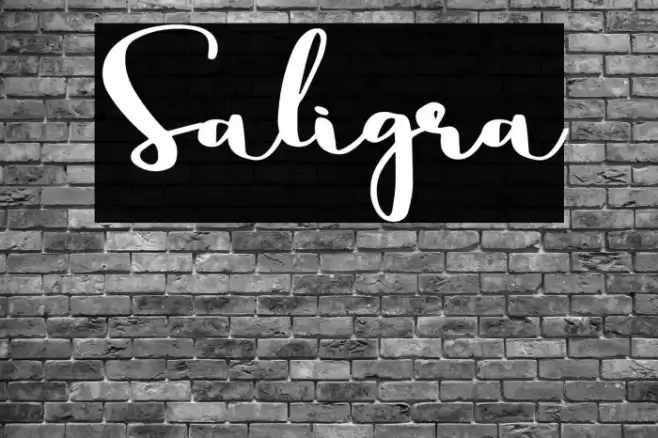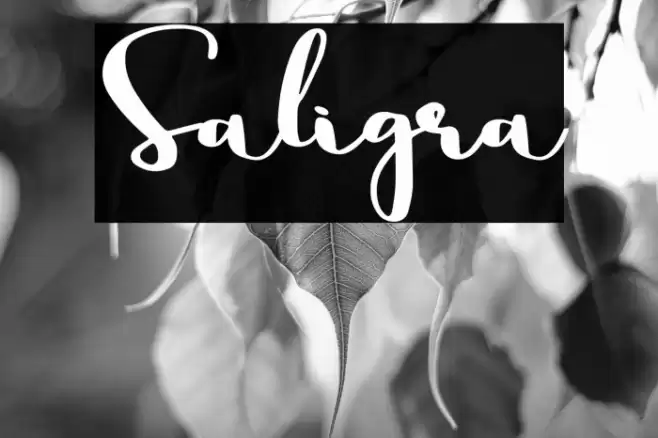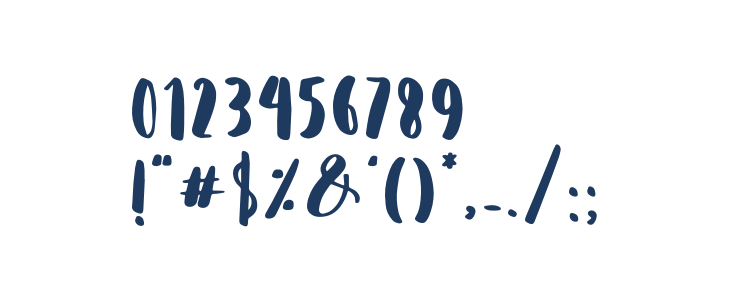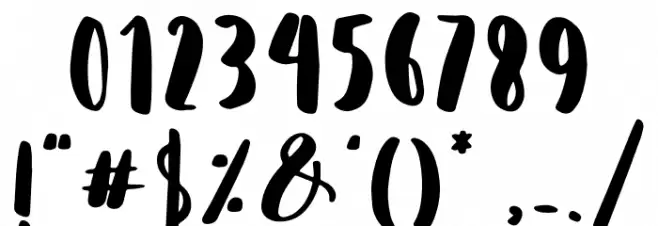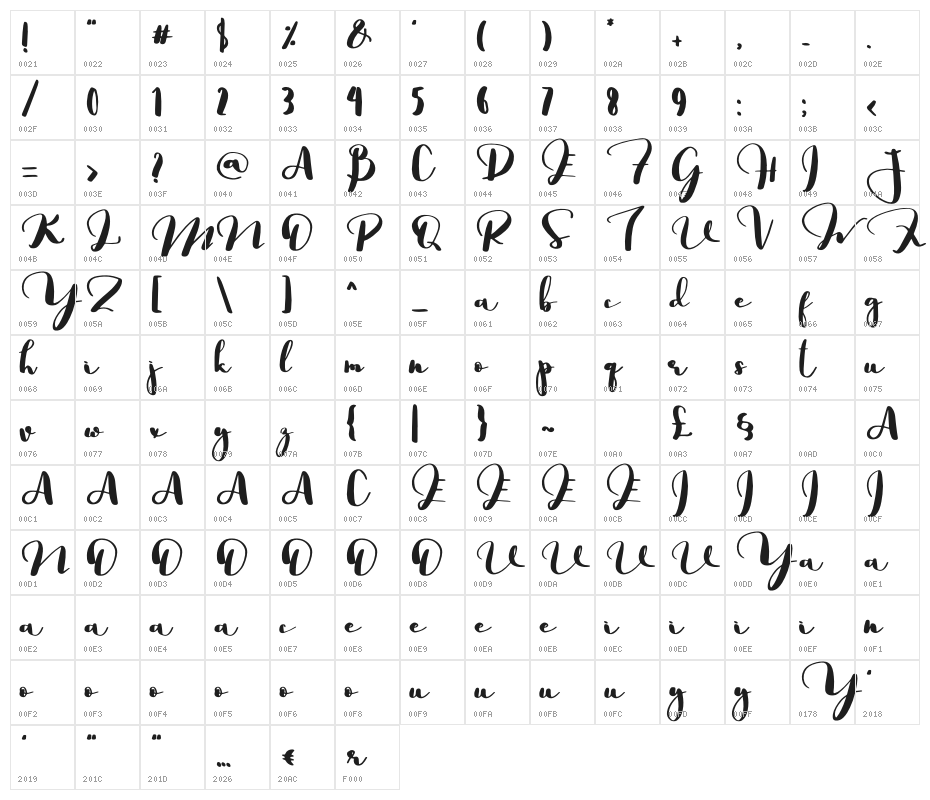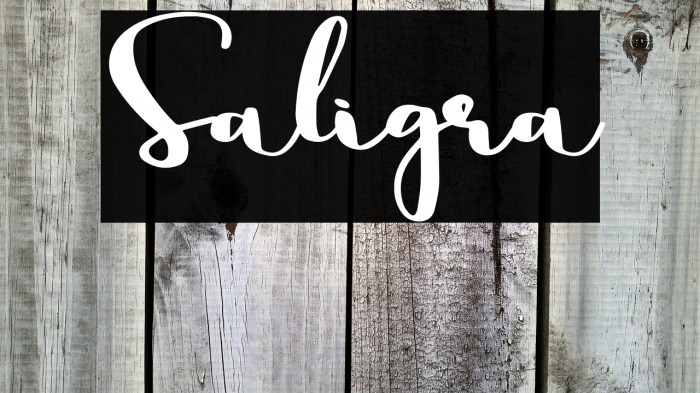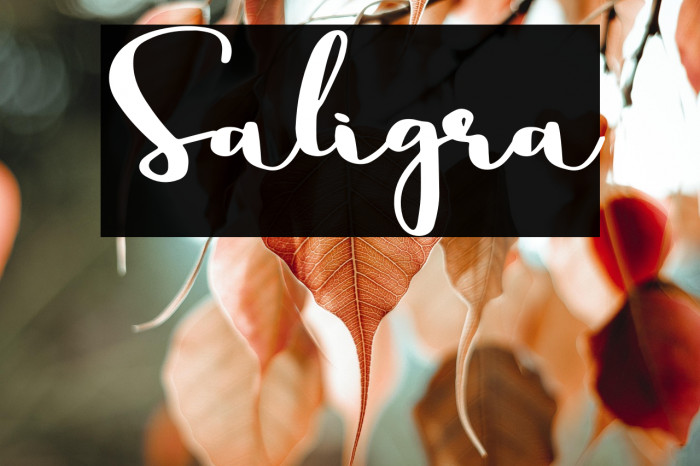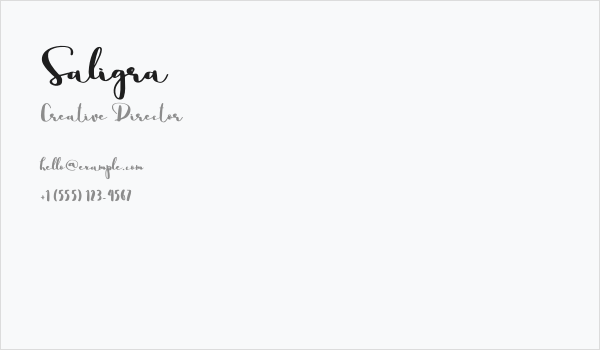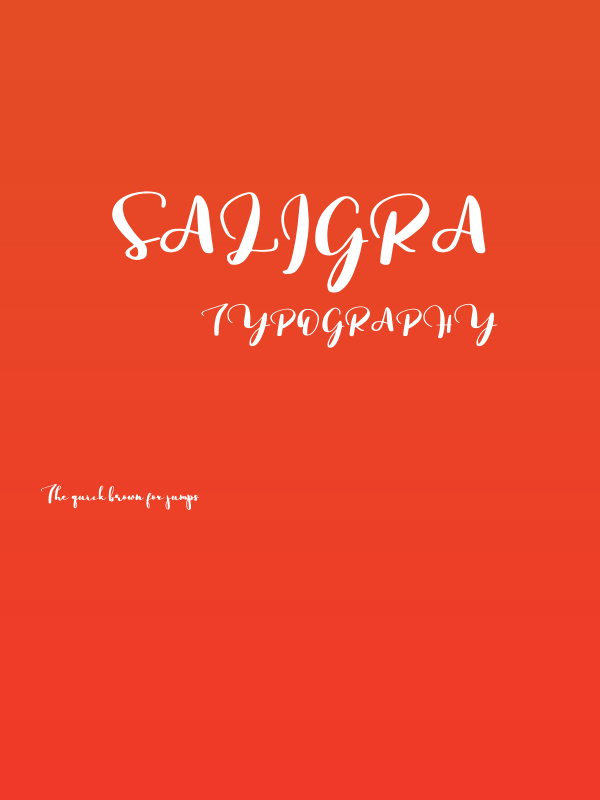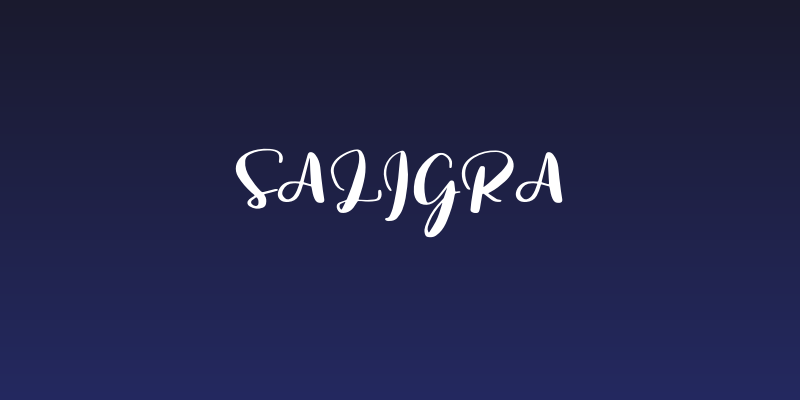
Saligra Font
Saligra Description
This font features a bold, flowing script style with a modern flair. The letters are connected in a cursive manner, giving it a handwritten appearance. The uppercase letters are elegantly designed with sweeping curves and loops, while the lowercase letters maintain a consistent flow, enhancing readability. The numbers and special characters are crafted to match the overall aesthetic, with a playful yet sophisticated touch. The thick strokes and smooth transitions between characters make it ideal for creating impactful designs.
A bold, modern script font with a flowing, handwritten style from Regular fonts.
- Proposed Projects: Ideal for wedding invitations, branding projects, greeting cards, and social media graphics.
- Use Case: Logos, Headlines, Invitations